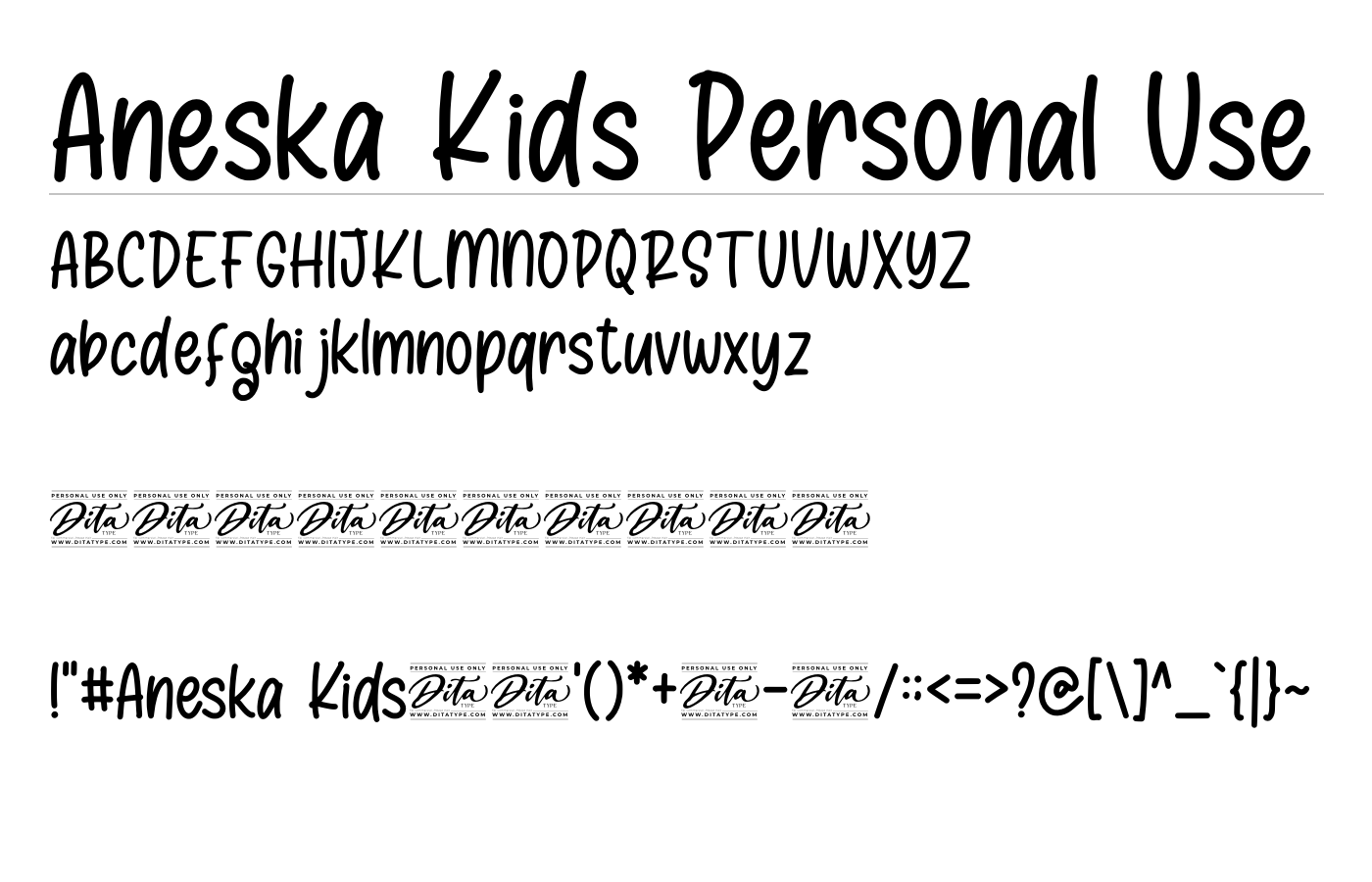
Aneska Kids Personal Use is a playful, sans serif font with a hand-drawn feel that mimics youthful handwriting. Its tall, narrow letterforms with slightly irregular strokes and smooth curves give it a friendly, approachable personality perfect for children’s materials, casual branding, and creative projects. This font works well in headlines, invitations, and educational content where a cheerful and informal tone is desired.
Aneska Kids Personal Use Font
About Aneska Kids Personal Use Font
| Font family | Aneska Kids Personal Use Font |